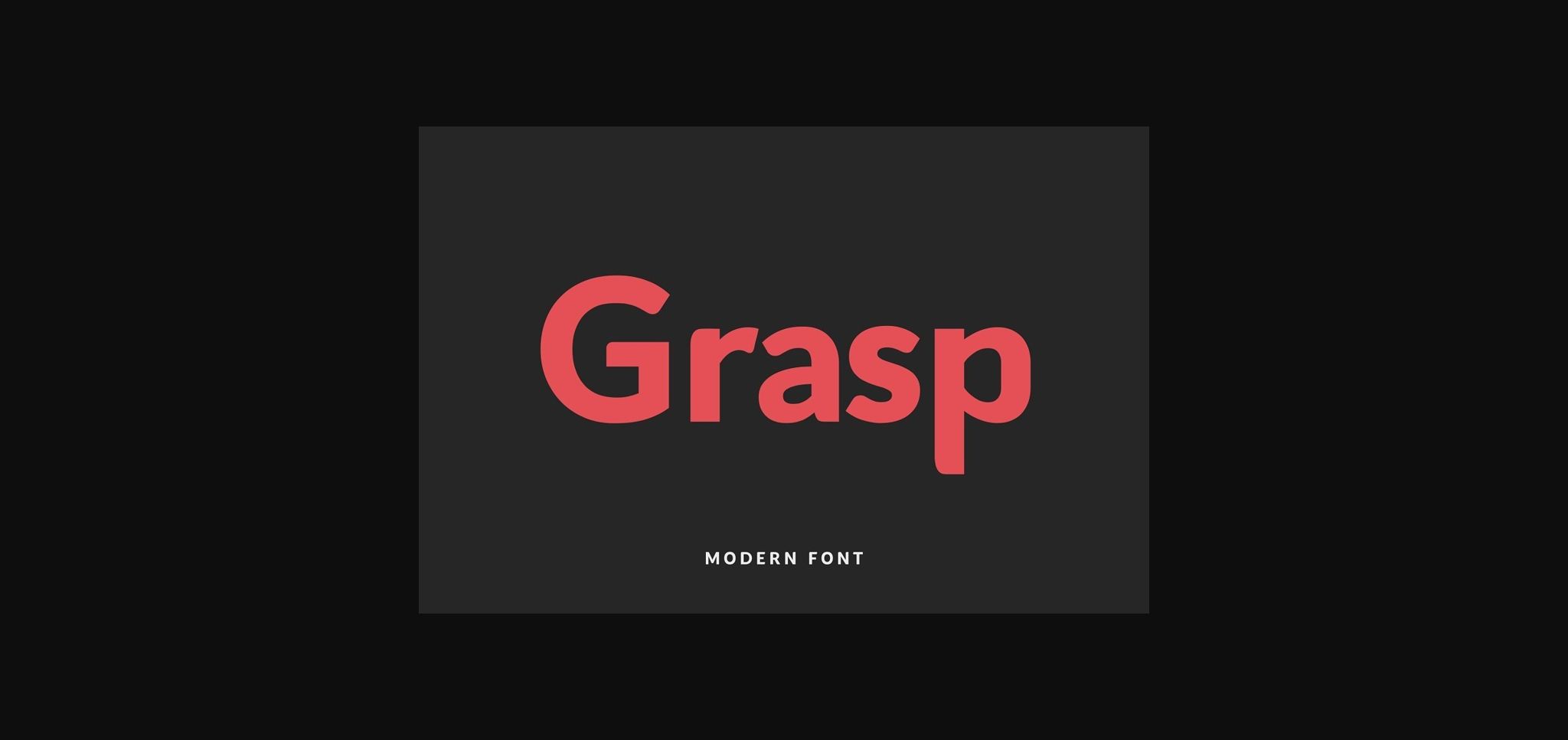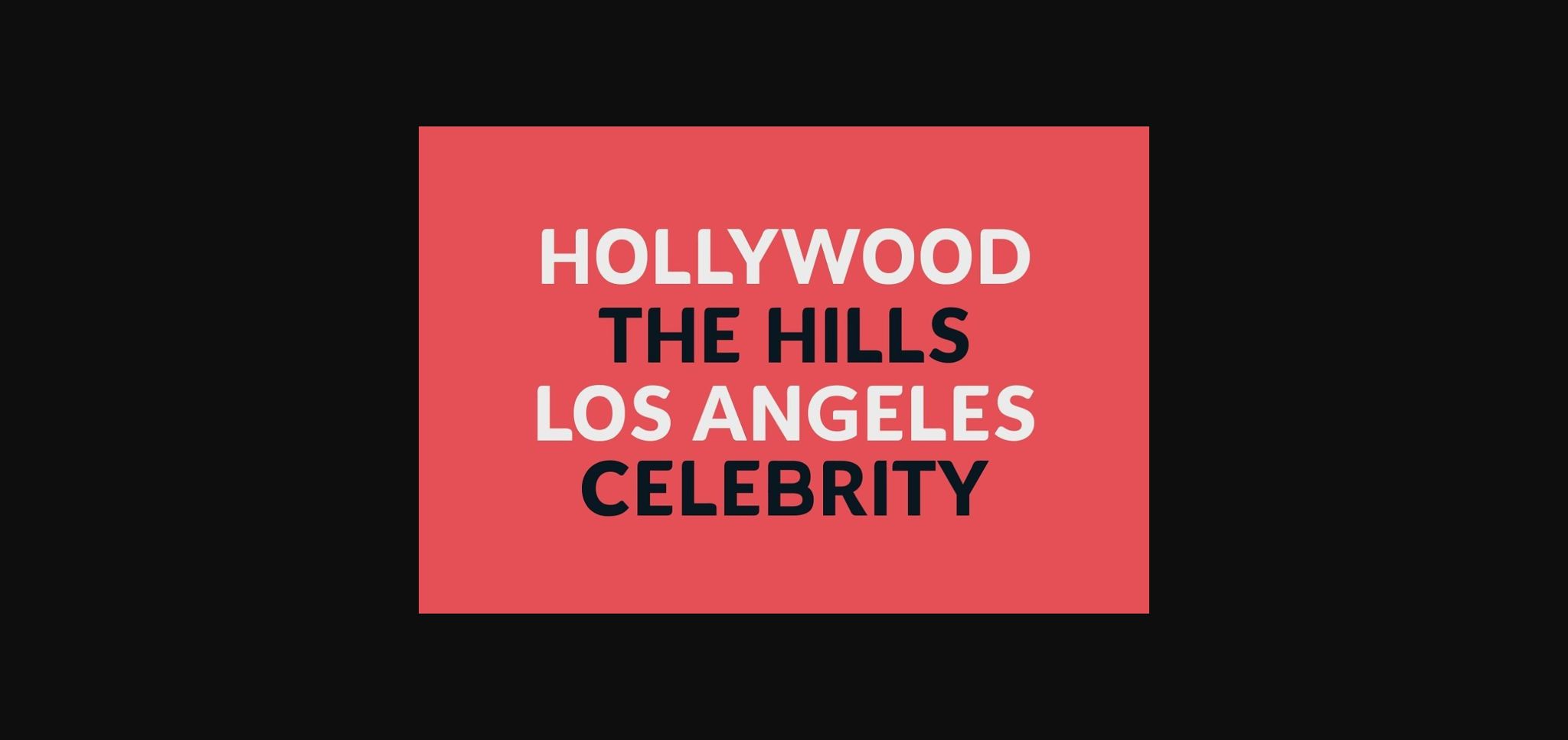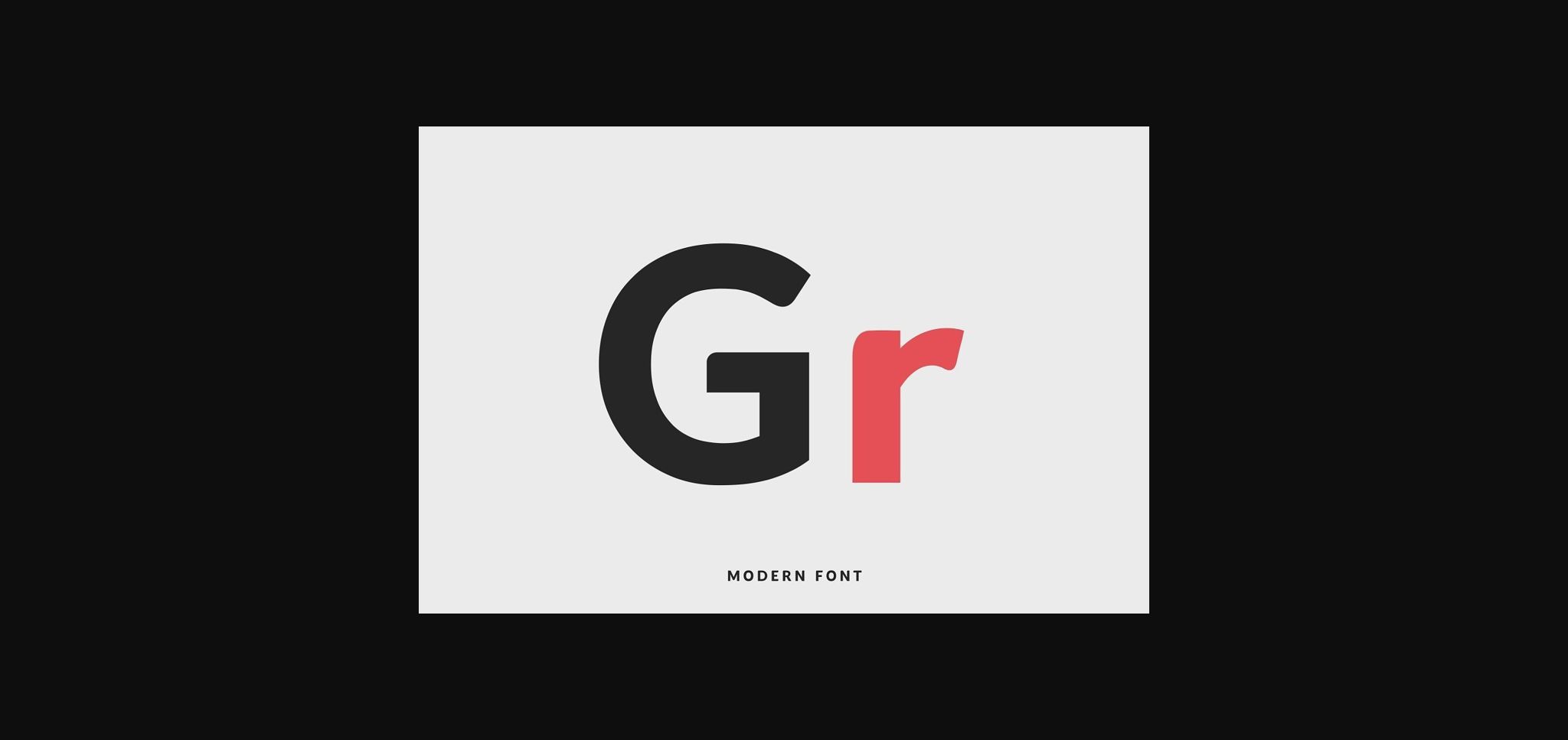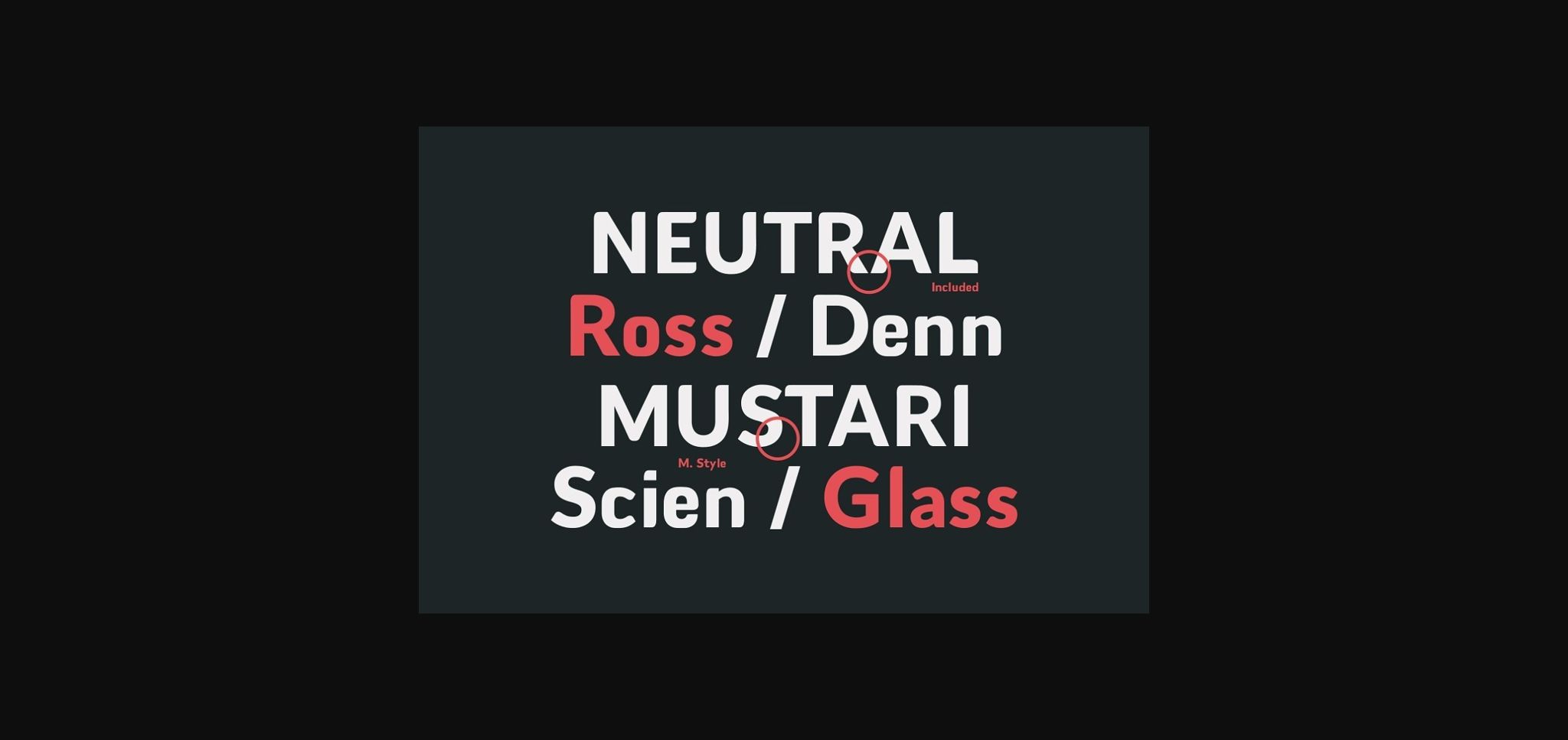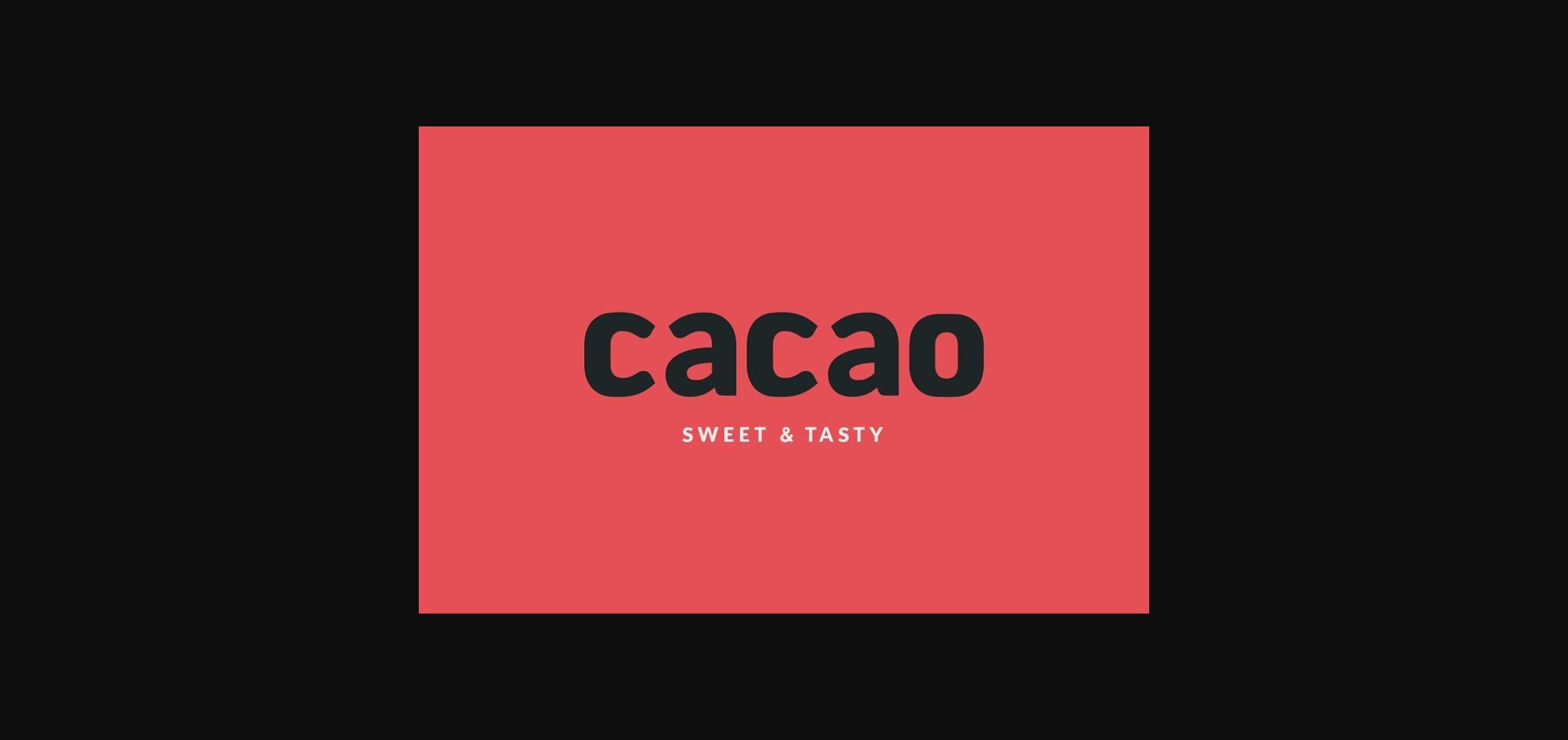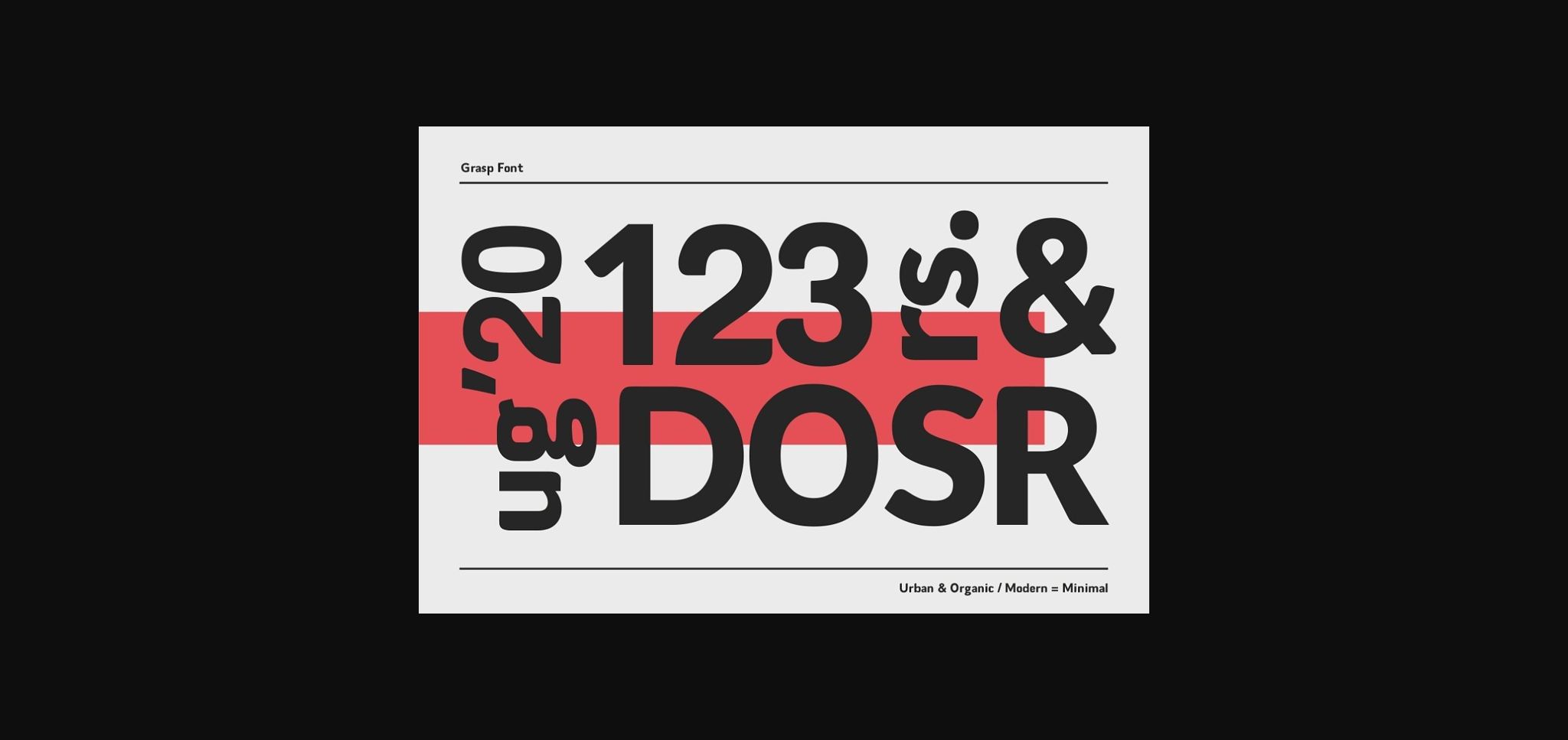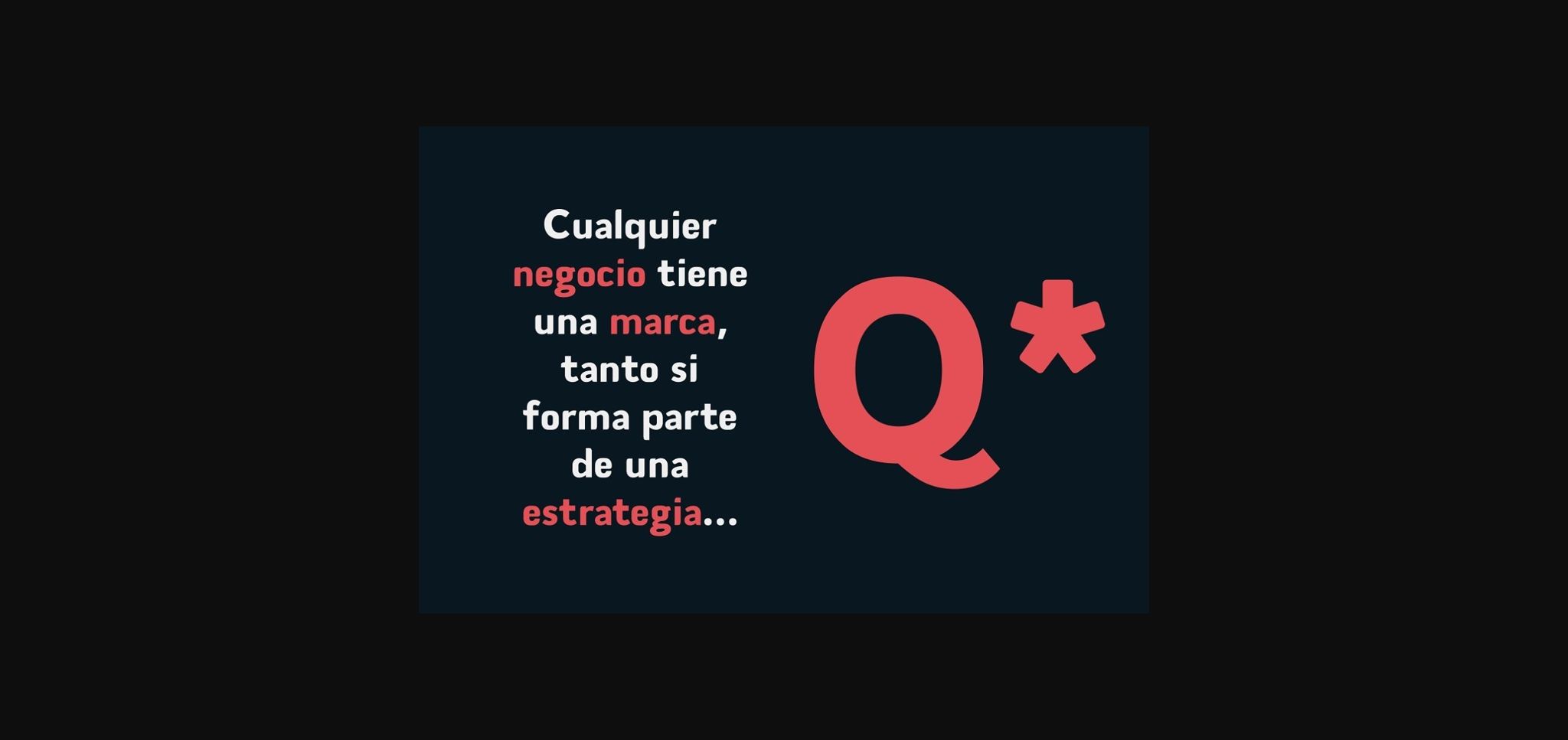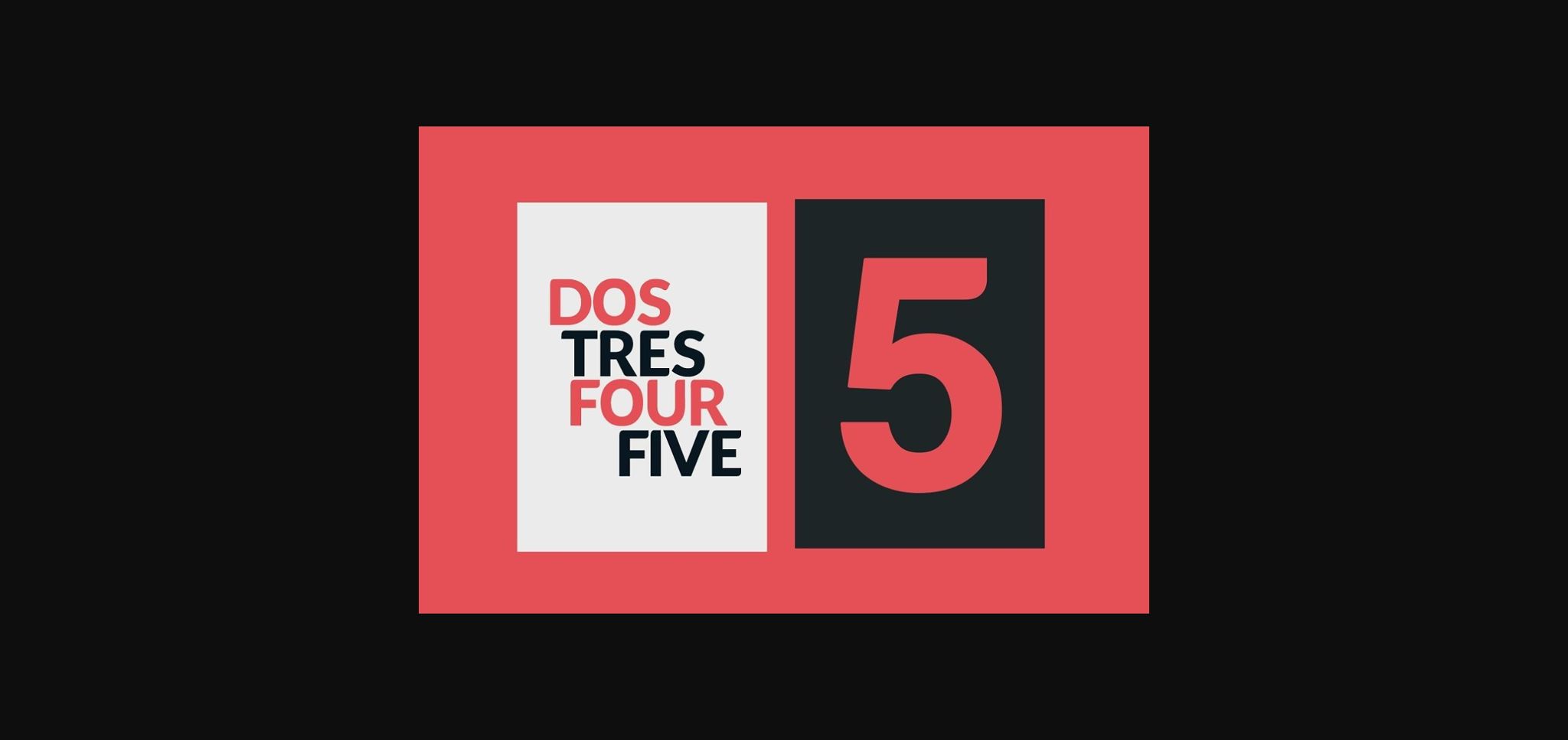
HomeSans Serif FontsGrasp Font Sans Serif Fonts Grasp Font FacebookXPinterestWhatsApp 1 of 11 ... Grasp Font Poster 2... Grasp Font Poster 3... Grasp Font Poster 4... Grasp Font Poster 5... Grasp Font Poster 6... Grasp Font Poster 7... Grasp Font Poster 8... Grasp Font Poster 9... Grasp Font Poster 10... Grasp Font Poster 11... About Grasp Font Grasp is a modern and neat sans serif font. This modern and bold vibe can easily apply to your favorite designs that require a trendy and elegant touch. DOWNLOAD NOW People also explored Mama Papa Font Naturale Font Darkspear Font Winter Rainbow Font Playarena Font Jagakarsa Font HT Orologiaio Genuine Handmade Font Kiq Font 312 0 TagsGraspGrasp Font Previous articlePsilograph FontNext articleSovereign Font LEAVE A REPLY Cancel reply Comment: Please enter your comment! Name:* Please enter your name here Email:* You have entered an incorrect email address! Please enter your email address here Website: Save my name, email, and website in this browser for the next time I comment. Personal Use Free Hanberra Personal Use Free Read more about this font Clarisa Script Personal Use Free Read more about this font Bukan Personal Use Free Read more about this font Nugo Sans Personal Use Free Read more about this font BLOG Free Fonts Risk: Why Free Fonts Can Be Dangerous for Designers Free Fonts Risk: Why Free Fonts Can Be Dangerous for Designers Using free fonts is a common practice in web and graphic design. However, the... How to Install and Use Fonts on Windows, macOS, and Web Projects Transform Your Website: Elevate Your Typography with 7 Best Web Font Generators Best Fonts for T-Shirt Design – Top 2025 Picks